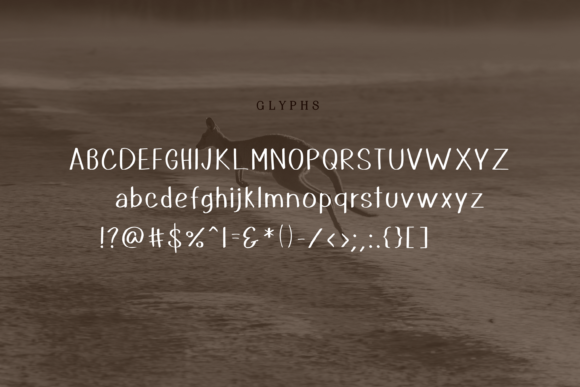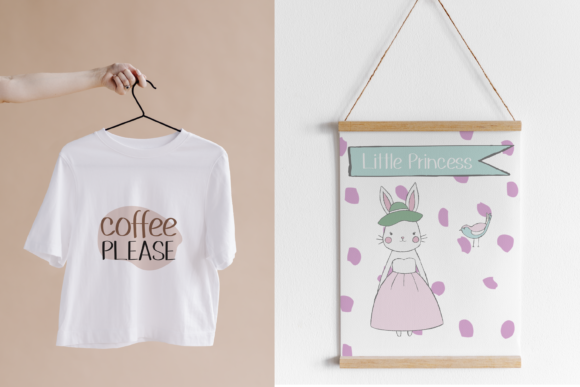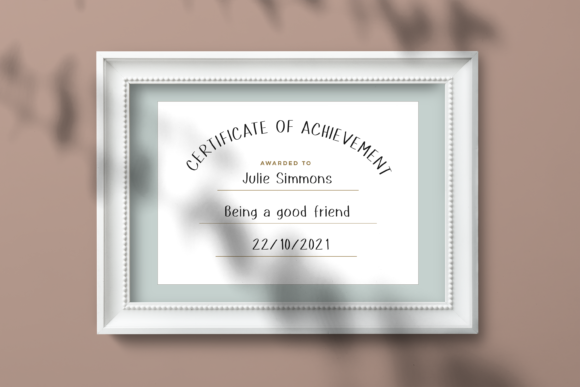
Introduction to Kangaroo Font
Kangaroo is a simple handwritten font that can be used for all chalkboard quotes or teaching material.
Its authentic look and feel will add a personal and realistic feel to your designs .
Key Features of Kangaroo Font
Why Choose Kangaroo Font?